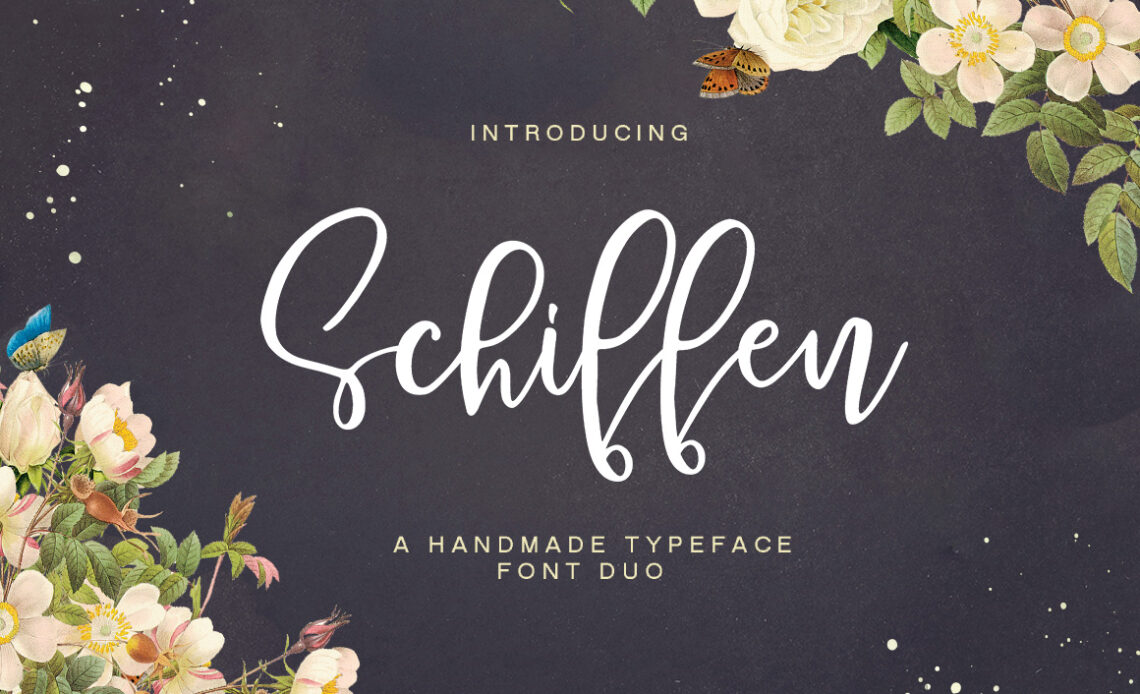
Introducing Schiffen Script Font, the epitome of elegance and distinction in the realm of typography. This meticulously crafted script font, born from the harmonious union of brush and ink, exudes a palpable sense of authenticity and charm.
Step into a world of limitless creative possibilities with Schiffen Script. Its hand-brushed texture, reminiscent of the strokes of a master calligrapher, lends an air of sophistication and artistry to your designs. Whether you're crafting logos, branding elements, or eye-catching social media posts, Schiffen Script ensures your message stands out with undeniable impact.
With its solid, legible character and effortless flow, Schiffen Script offers unparalleled clarity and readability, making it the perfect choice for a wide range of applications. From elegant invitations and heartfelt letters to captivating marketing materials and impactful presentations, Schiffen Script elevates your words, transforming them into visual masterpieces.
But that's not all – Schiffen Script comes partnered with its inseparable companion, Shiffen Sans, a modern and minimalist sans-serif font. Together, this dynamic duo forms a synergistic bond, enabling you to create visually striking compositions that dance between timeless elegance and contemporary flair.
Experience the magic of Schiffen Script and Shiffen Sans today, and unlock a world of boundless creativity. Transform your designs into captivating expressions of your imagination and leave an indelible mark on your audience.